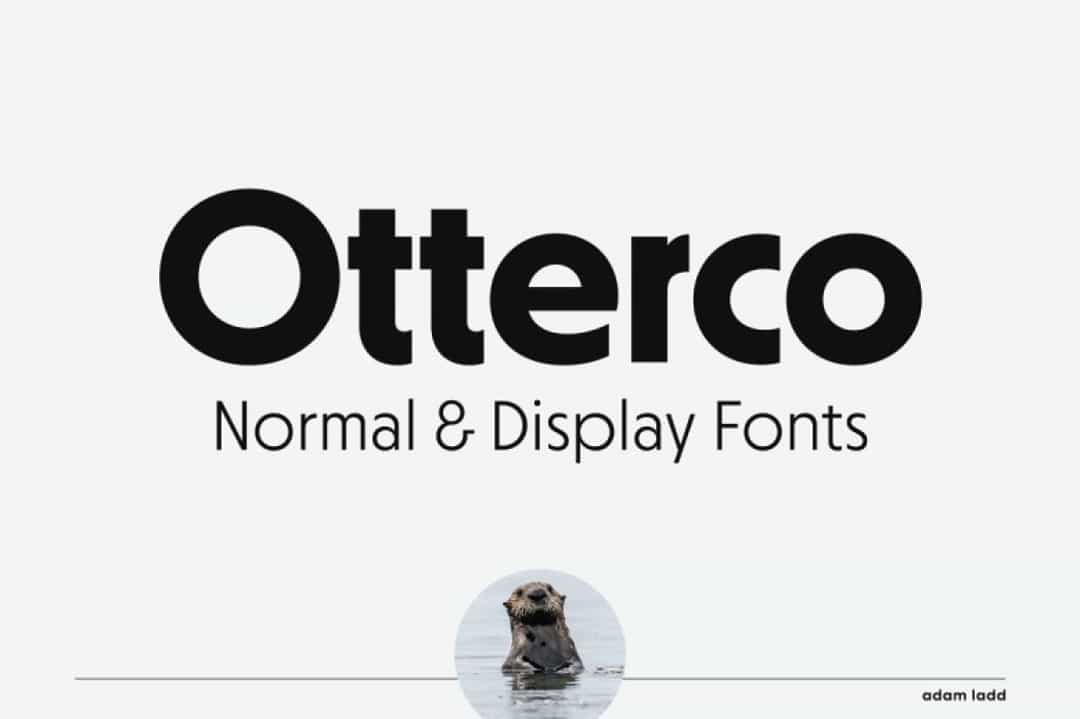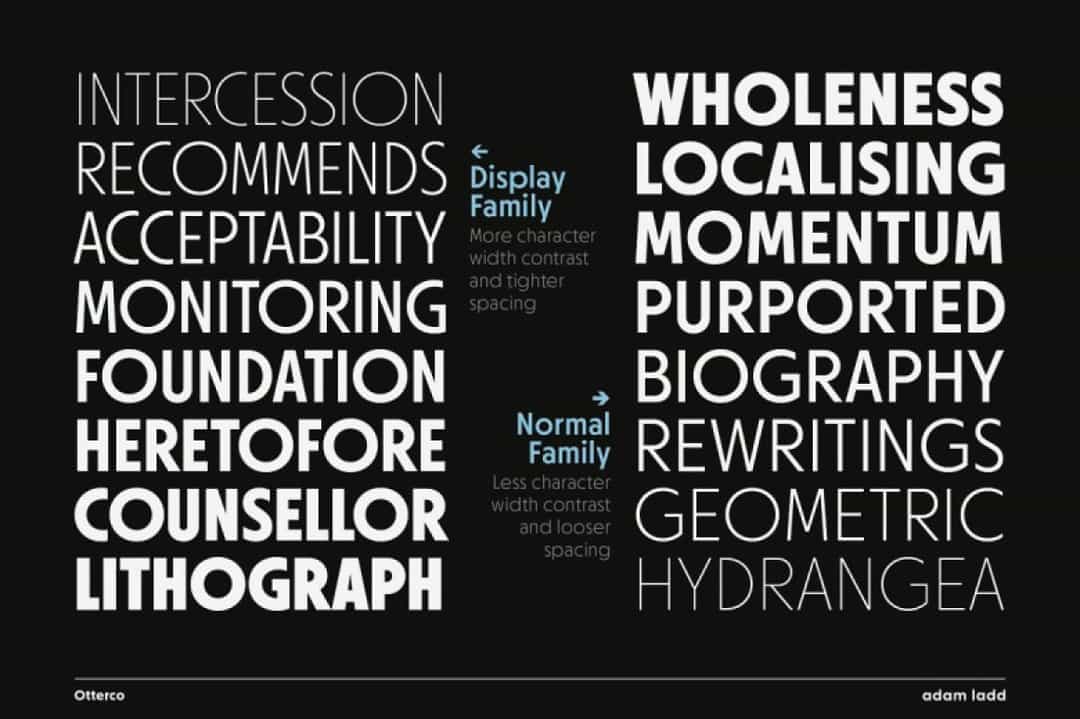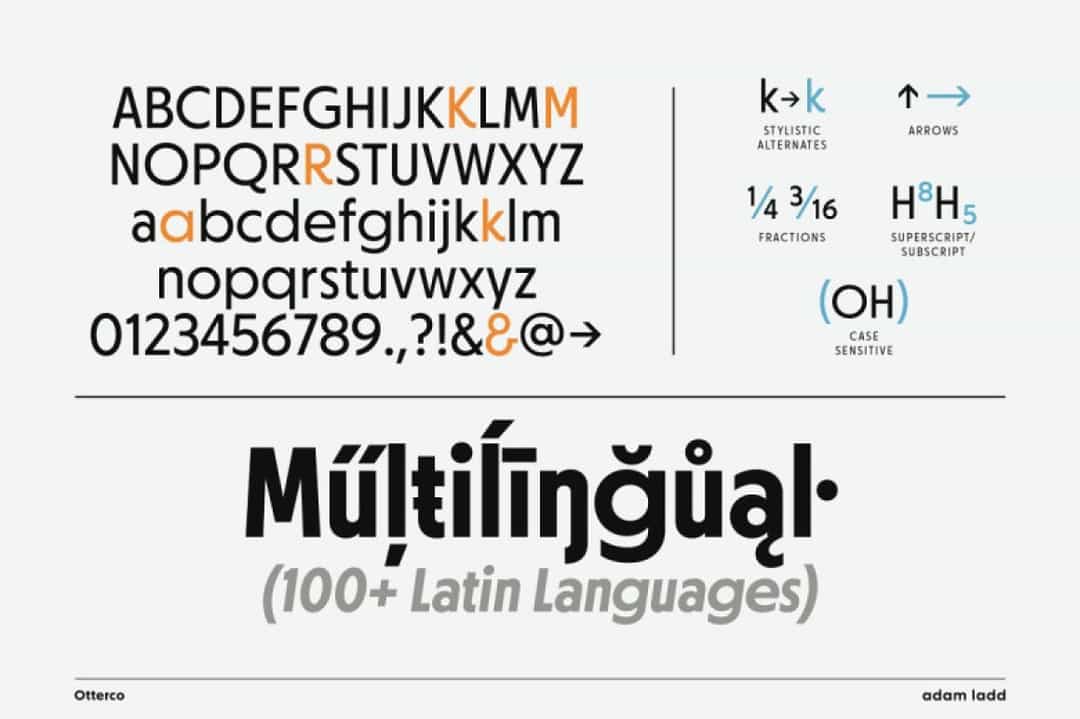
Otterco Font is a geometric sans serif family of fonts featuring various narrow and round characters that blend modern with retro influences, providing a simple but not boring typeface experience that’s unique, professional, and enjoyable. Character width contrast creates an engaging visual rhythm while cutoffs help maintain solid clarity – ideal for multiple applications due to its high x-height and lower stroke contrast ratio.